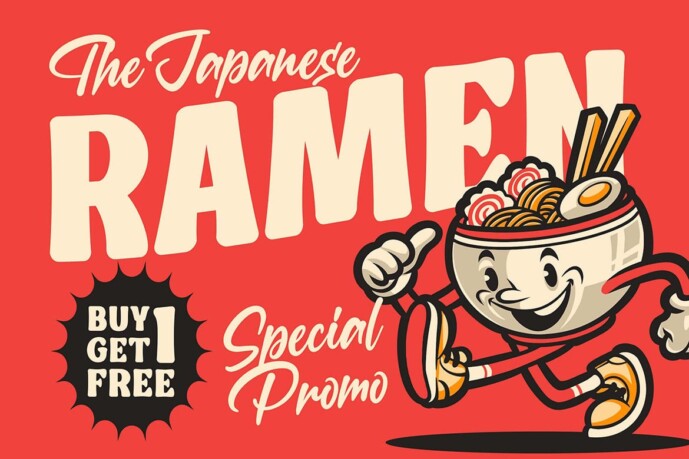
Kitchen Delight Font
Kitchen Delight Font, a delicious font duo, is designed for any professional branding project, such as logo, watermarks, posters, branding, promotions, product packaging, etc. Each letter has a culinary design theme. This font is available in 2 font combinations.
Kitchen Delight font includes a complete set of food-themed uppercase and lowercase letters, numbers, and punctuation. This font has a retro sporty style. Check out the previews above for inspiration on how to use them.